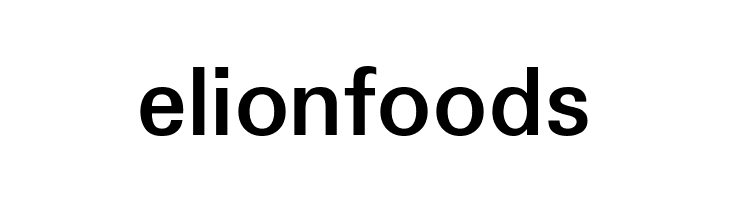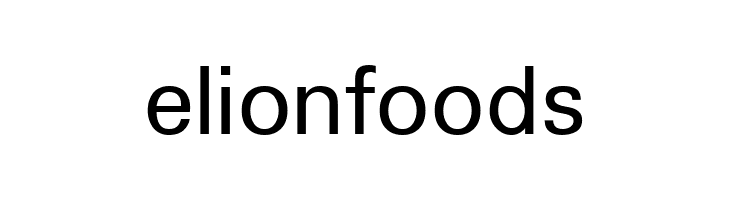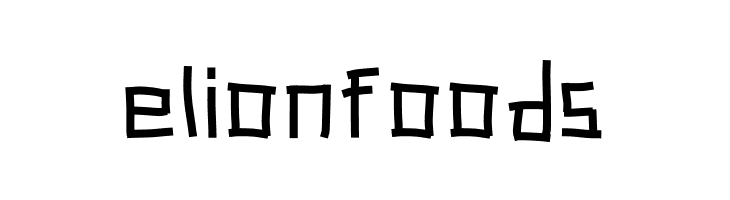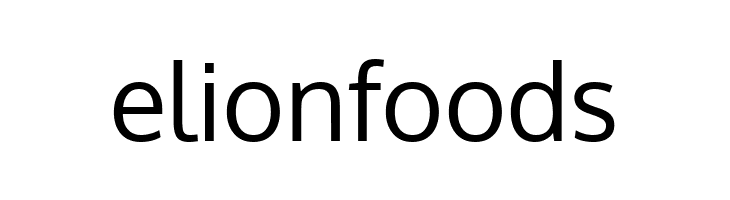
A playful and dynamic font with a casual, friendly appearance.
A modern, geometric sans-serif font with clean lines and balanced proportions.
A modern, geometric sans-serif font with a clean and approachable design.
A bold, modern sans-serif font with geometric shapes and uniform stroke width.
A modern, light sans-serif font with clean lines and excellent readability.
A clean, modern monospaced typeface ideal for coding and data presentation.
A modern, geometric sans-serif font with excellent legibility.
A bold, angular font with a hand-drawn, tape-like aesthetic.
A modern, clean sans-serif font with excellent readability and balance.
A bold, modern sans-serif font with excellent readability and uniform stroke width.